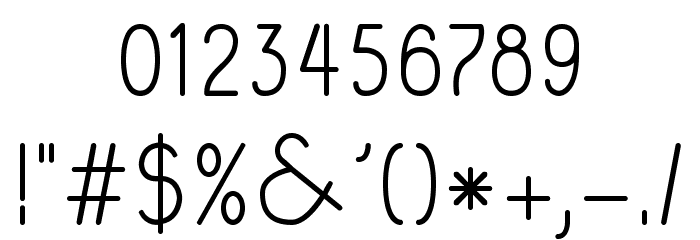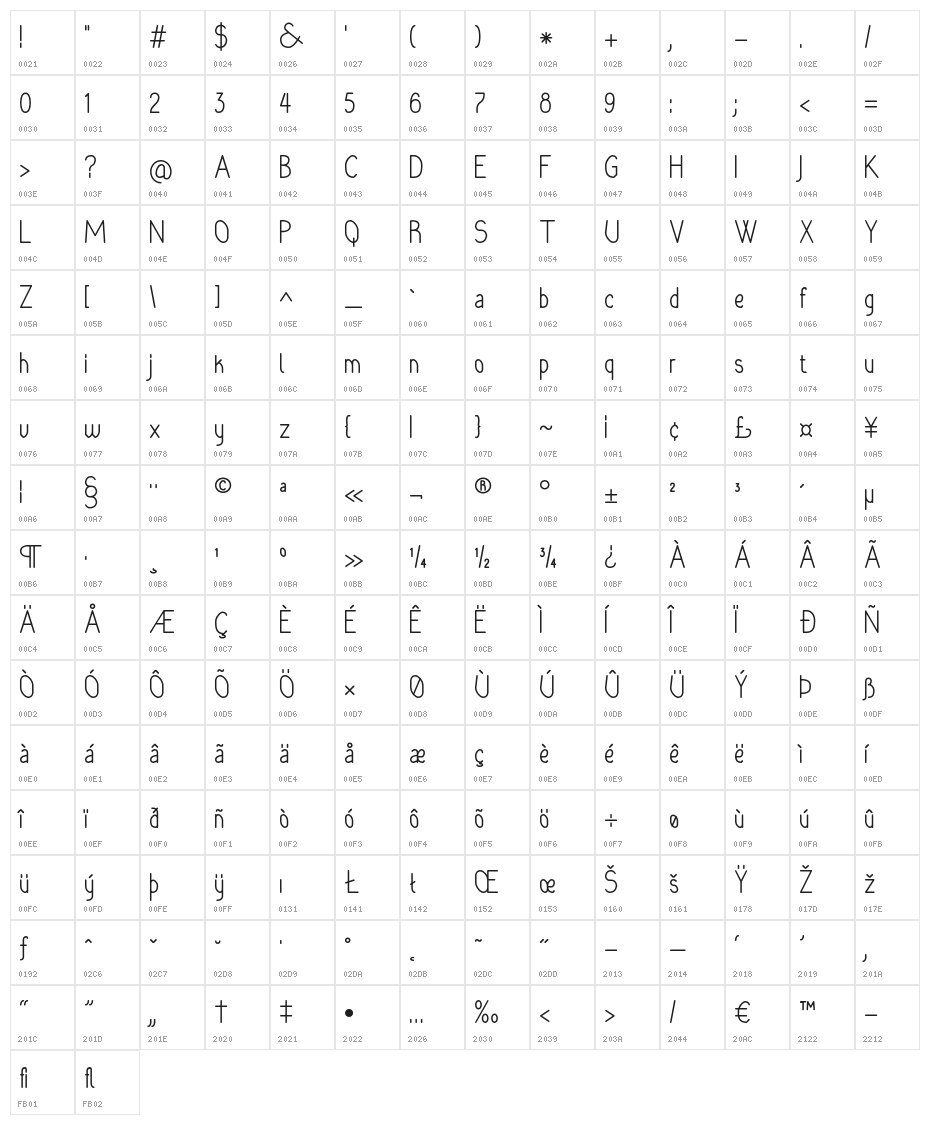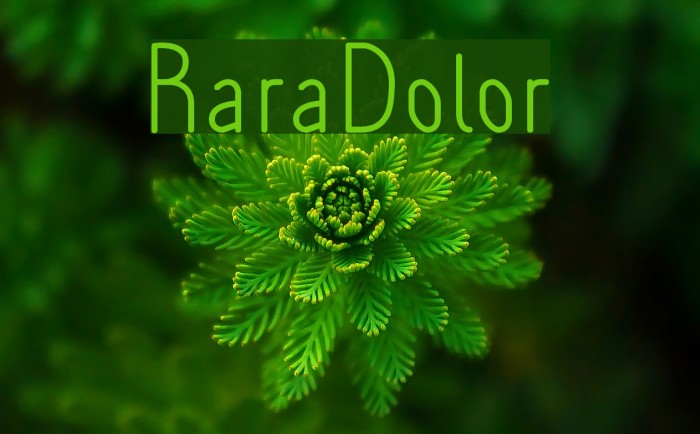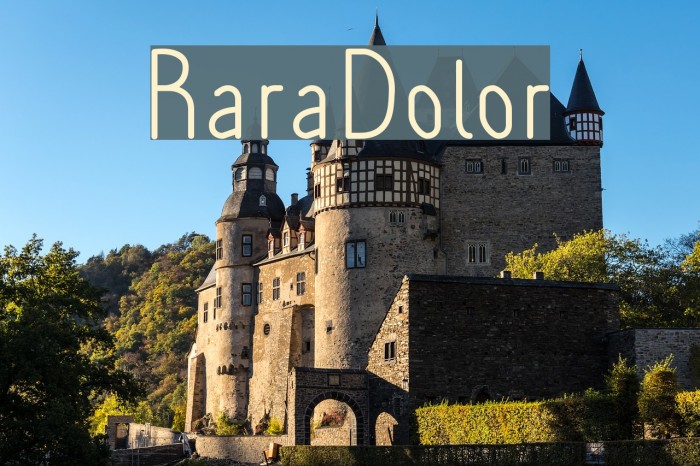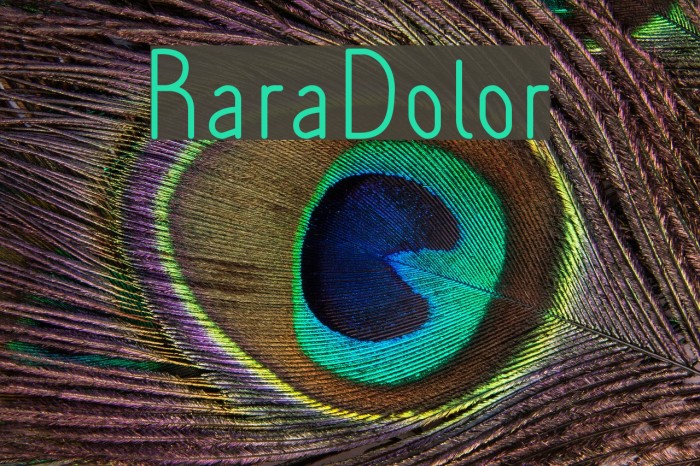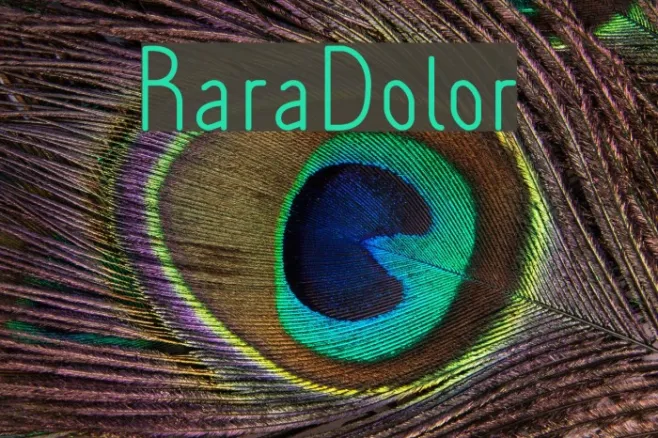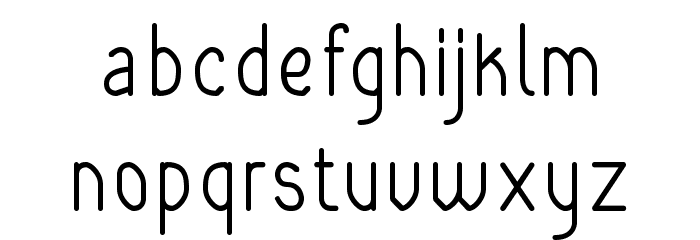
RaraDolor Font
RaraDolor Description
This font features a clean, modern design with a geometric structure. The characters are evenly spaced, offering a balanced and harmonious appearance. The uppercase letters are tall and slightly narrow, while the lowercase letters maintain a consistent height, enhancing readability. The numerals are distinct and clear, making them suitable for various applications. Special characters are well-defined, adding versatility to the font. Its simplicity and clarity make it ideal for both digital and print media.
| Proposed Projects | Ideal for branding, web design, editorial layouts, and signage due to its clarity and modern appeal. |